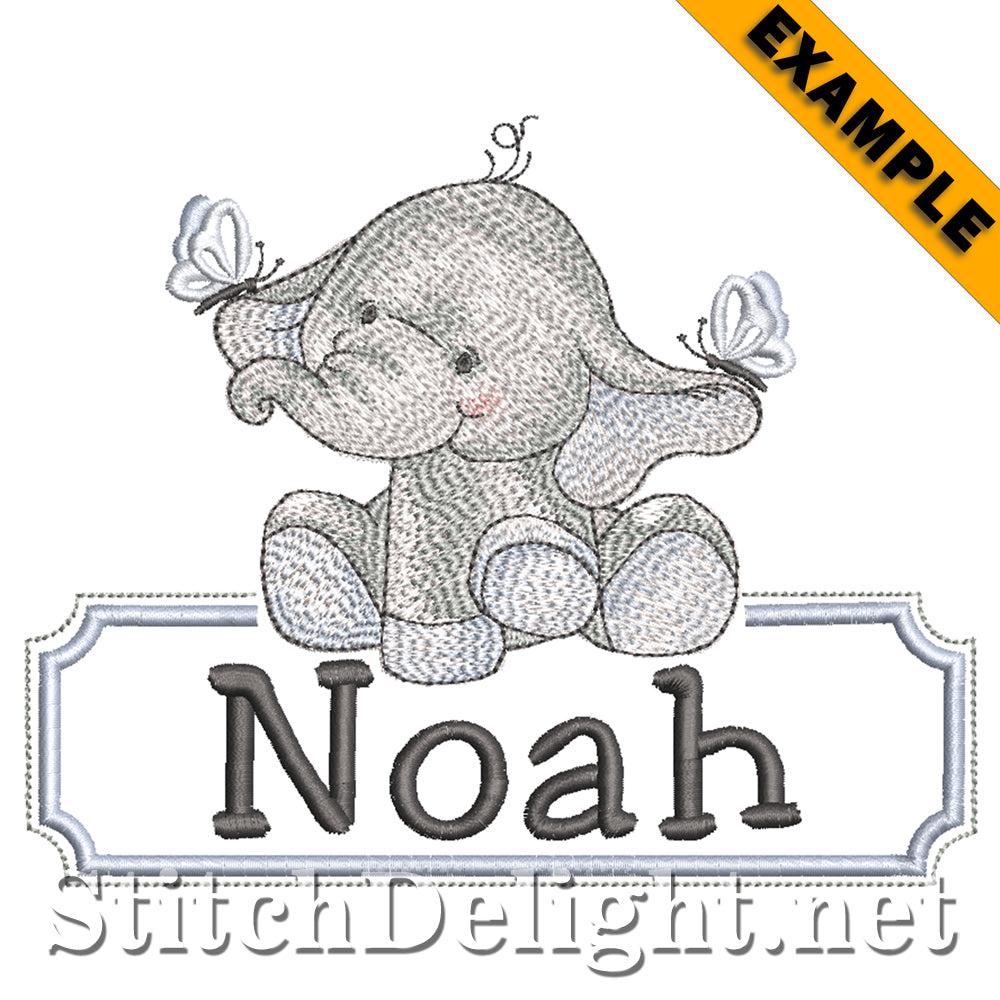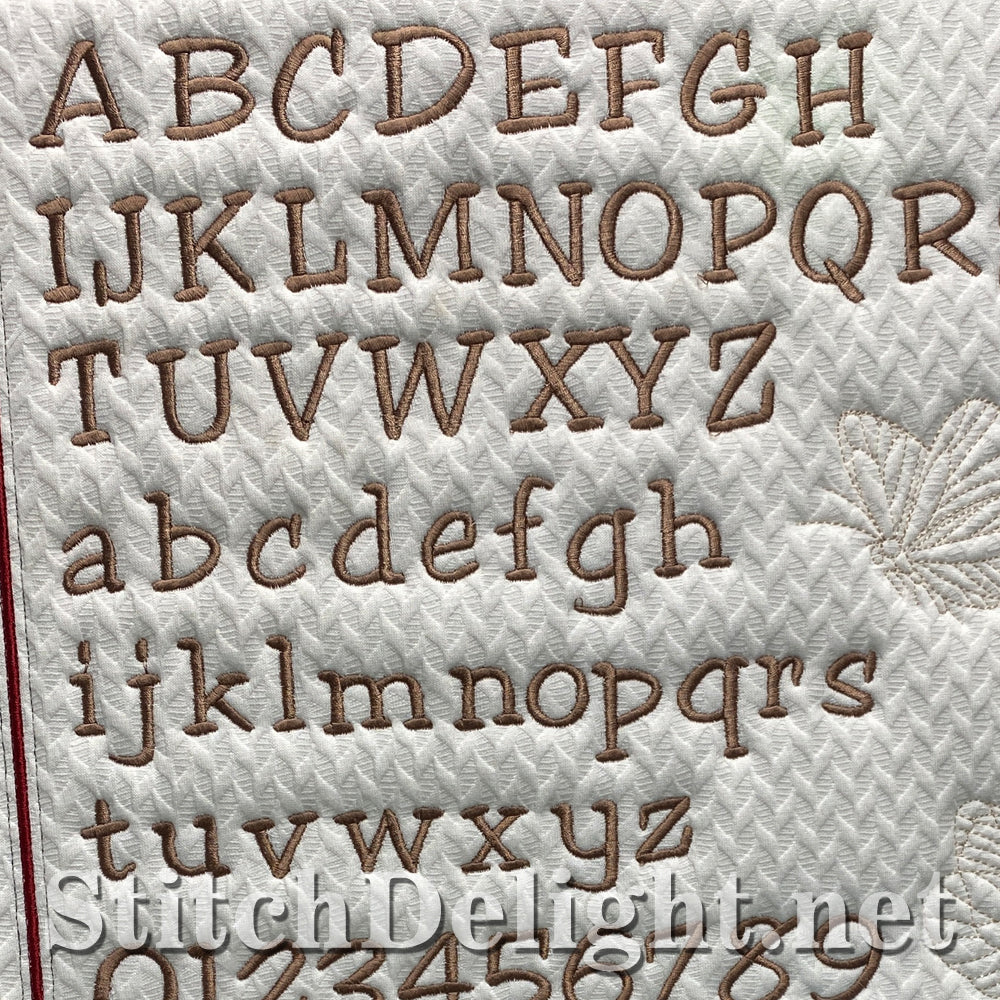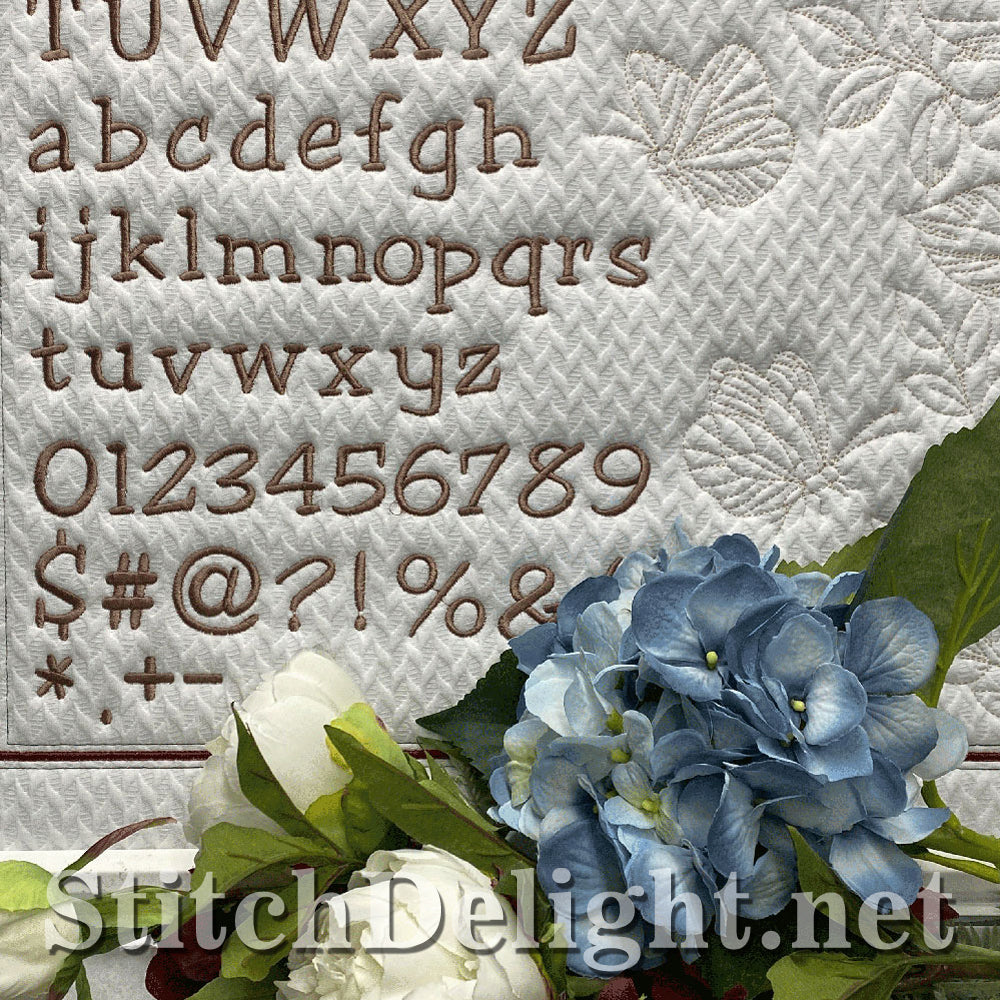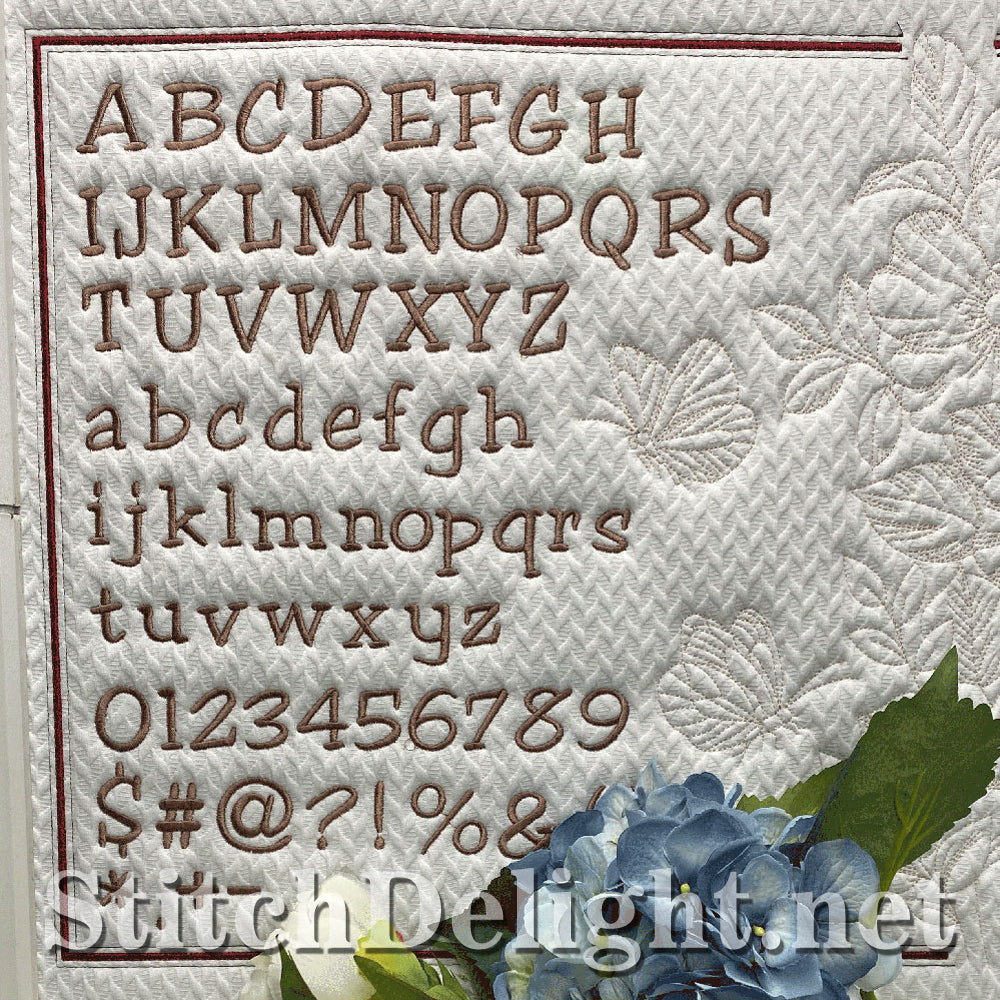
This font has been specially made for the Teddy,Ellie Name Frames. It has an average height of 1.1" and includes BX format to easily type out your names using Embrilliance.
This font includes the following characters: Uppercase, Lowercase, Numbers, 13 Special Characters.